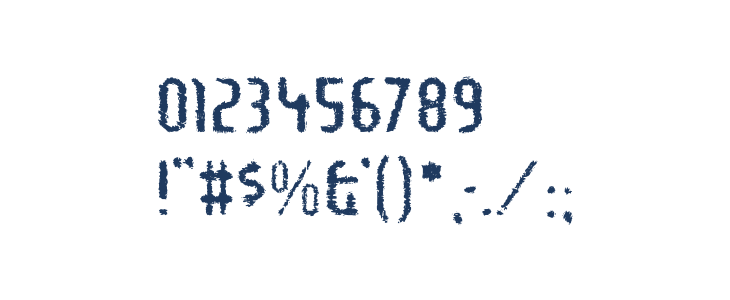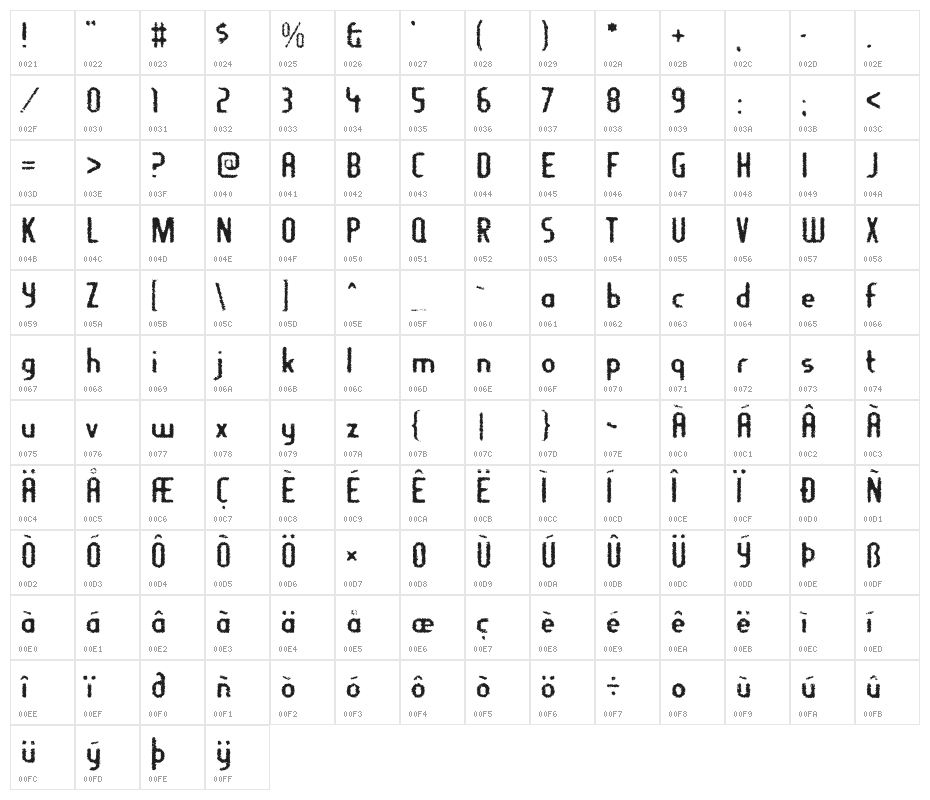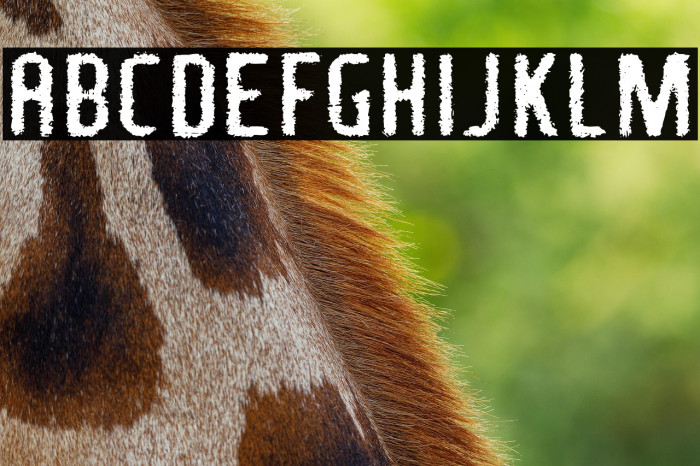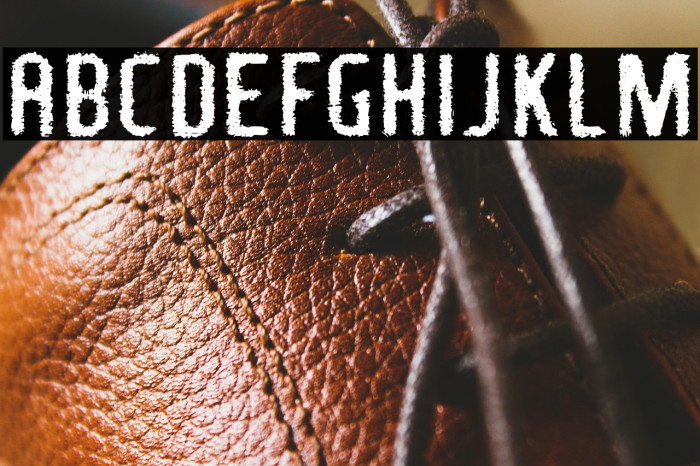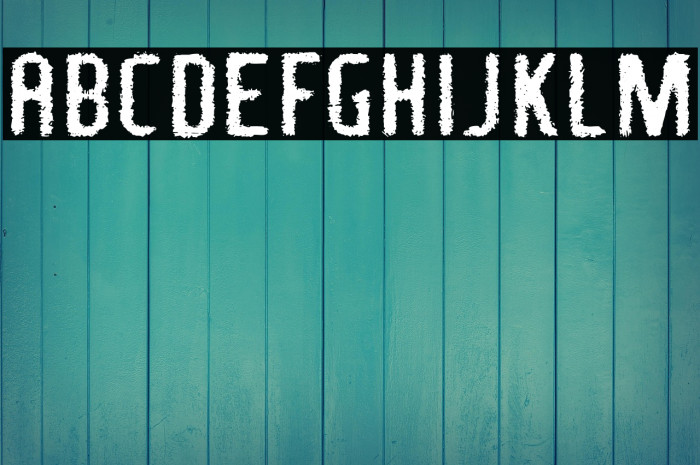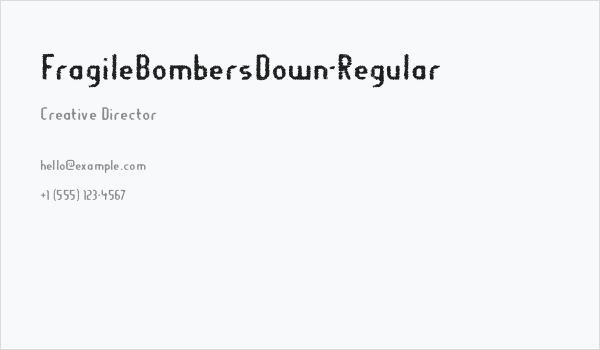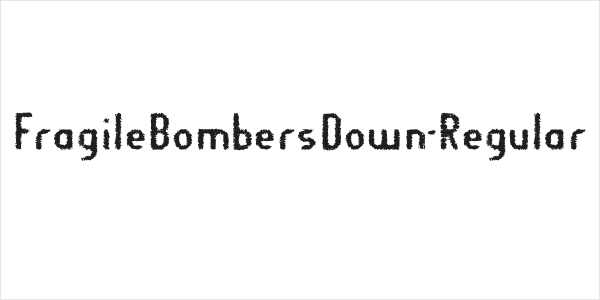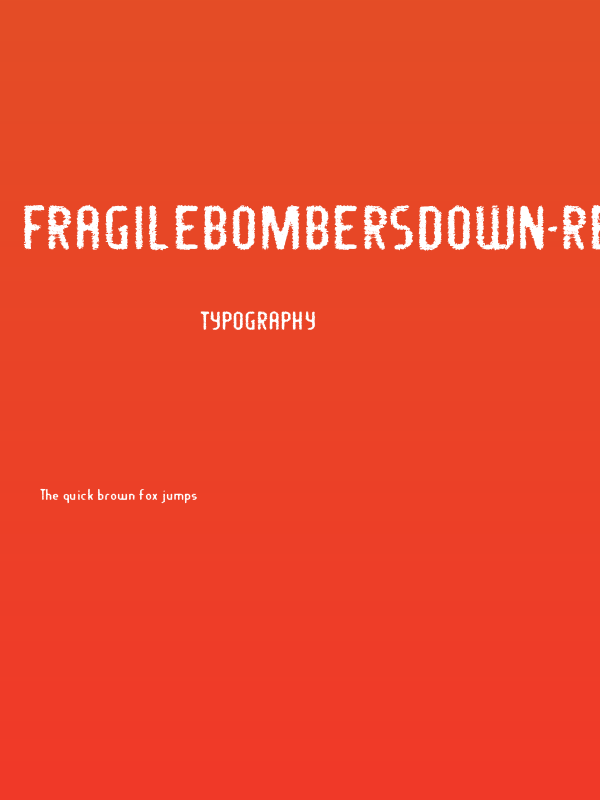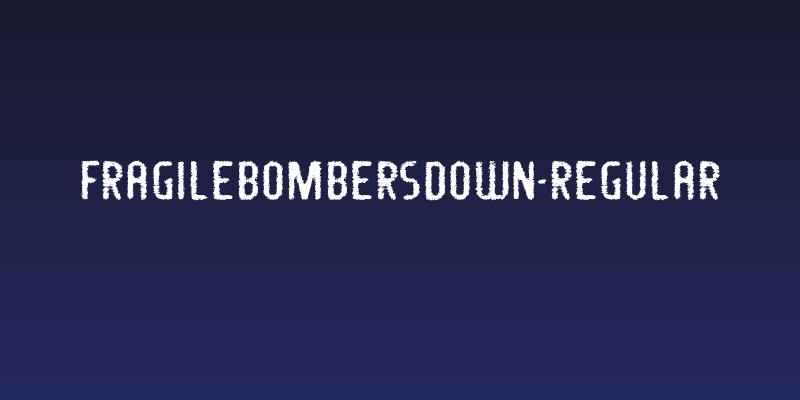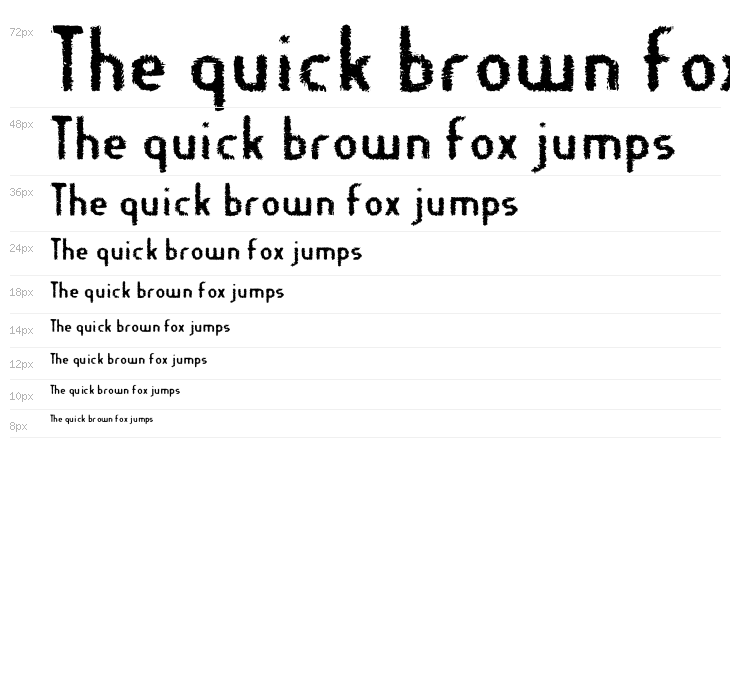
FragileBombersDown-Regular Font
FragileBombersDown-Regular Description
This font features a rugged, distressed appearance with a textured, almost eroded look. The characters are bold and have a rough, uneven edge that gives them a hand-crafted feel. The uppercase and lowercase letters maintain a consistent style, with a slightly condensed form that enhances their boldness. Numbers and special characters follow the same design, ensuring a cohesive look across all elements. This font's unique texture and bold presence make it stand out, ideal for projects that require a strong visual impact.
| Proposed Projects | Ideal for posters, album covers, branding for edgy or alternative products, and any design needing a bold, impactful statement. |